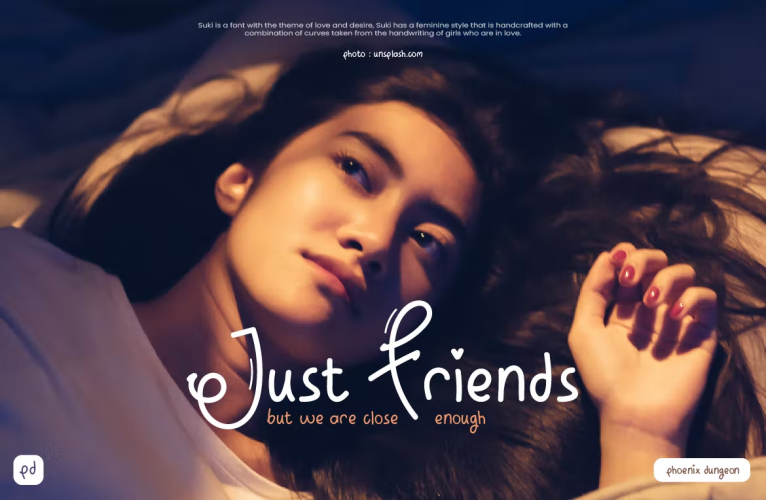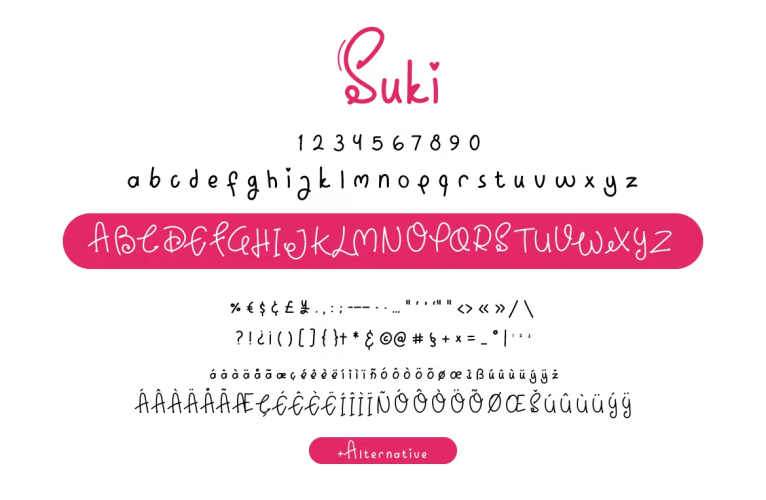
Suki Font
Suki is a font with the theme of love and desire, Suki has a feminine style that is handcrafted with a combination of curves taken from the handwriting of girls who are…
Suki is a font with the theme of love and desire, Suki has a feminine style that is handcrafted with a combination of curves taken from the handwriting of girls who are in love.
Where Suki Font works best
A short phrase in Suki Font carries warmth that a typeset sans cannot fake; keep the rest of the card plain.
Chalkboard-style headings in Suki Font make a menu feel hand-made. Keep the dish descriptions in a simple face so prices stay readable.
One line of Suki Font over a photo is enough; the script carries the tone and the caption does the work.
What kind of work does Suki Font suit?
It sits in the Script And Handwritten group and reads as handwritten, professional, script, script and handwritten. That makes it a candidate wherever those qualities help: headings, packaging, social graphics and brand work. Set it at the size you plan to use before deciding.